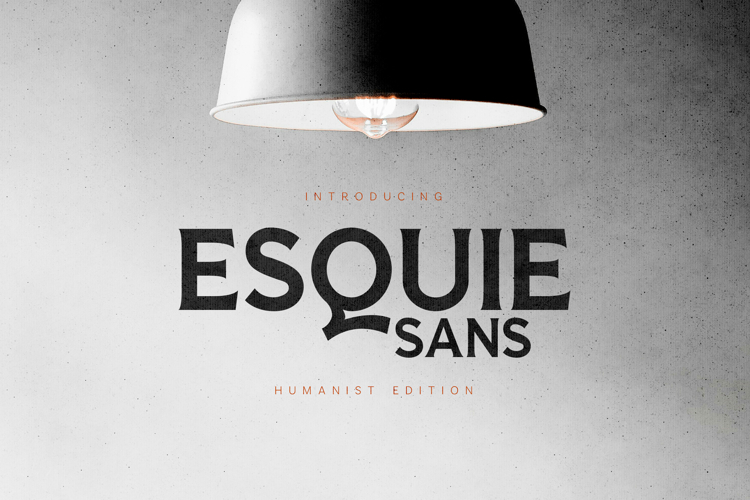
Esque Sans Modern Humanist Sans Serif Font
Esque Sans is a modern humanist sans serif font designed for clarity, warmth, and contemporary expression. With balanced proportions, subtle organic curves, and confident letterforms, it delivers a clean yet approachable aesthetic ideal for modern design systems.
Perfect for branding, editorial layouts, headlines, posters, interfaces, and typography-driven projects, Esque Sans performs beautifully across both print and digital environments. Its humanist structure gives it a natural rhythm and excellent readability, making it suitable for everything from bold statements to refined layouts.